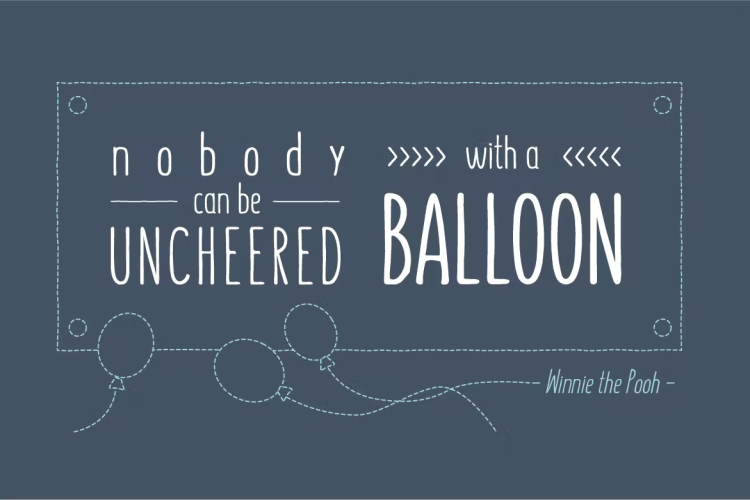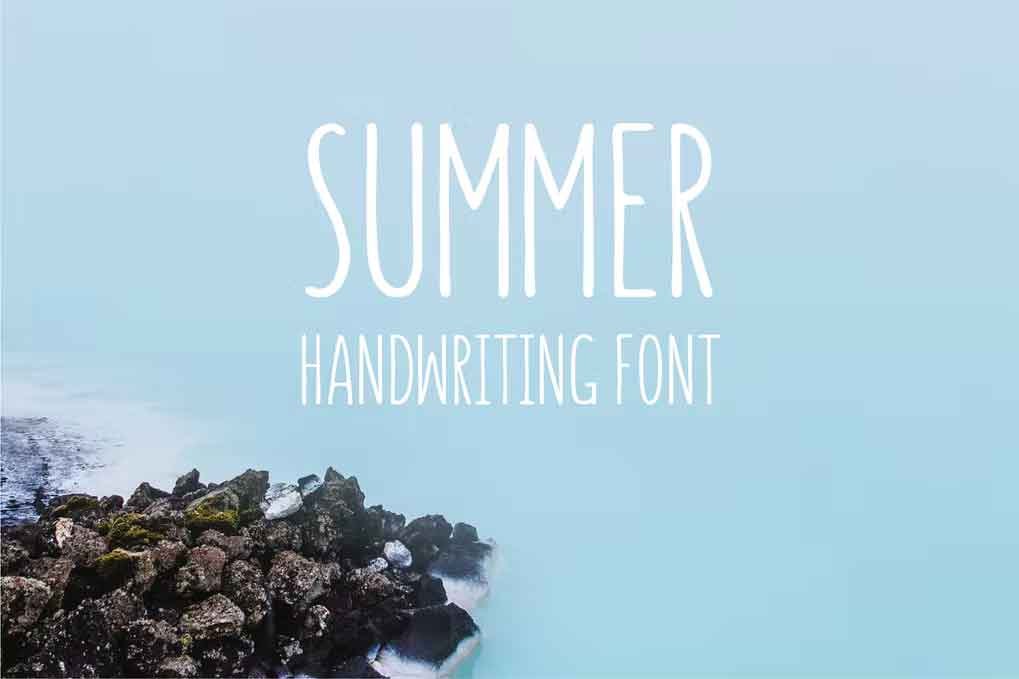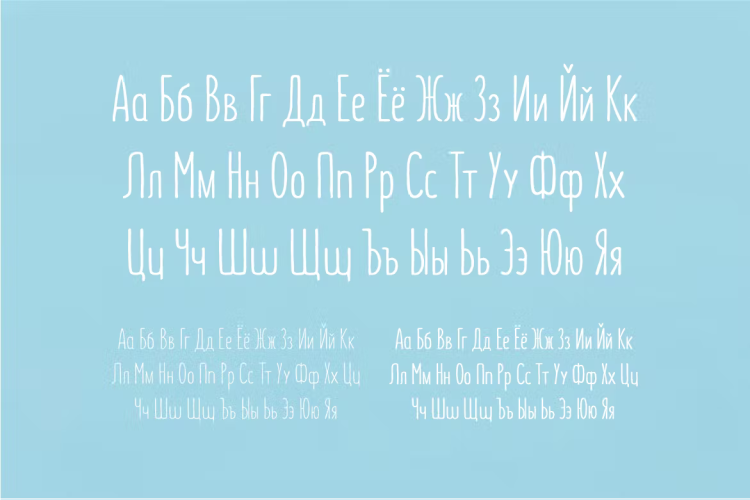
Summer Handwriting Font
Summer font is a handwriting font with an strong construction underneath!
Where Summer Handwriting Font works best
Summer Handwriting Font gives long-form text a classic, trustworthy rhythm — ideal for magazine spreads, annual reports and book interiors.
Pair Summer Handwriting Font with generous letter-spacing for wordmarks in fashion, hospitality, wine and jewellery branding.
Use Summer Handwriting Font for slide titles in Keynote, PowerPoint or Google Slides to add authority without looking dated.
What is Summer Handwriting Font good for?